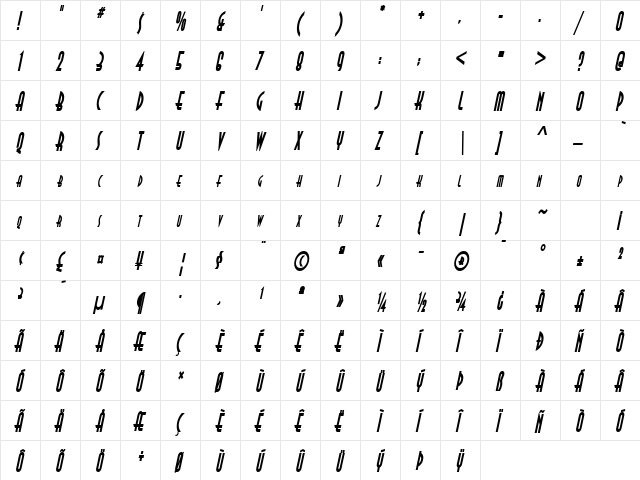
Asia Thin BoldItalic
Design Context for Asia Thin Typeface
Asia Thin is a composed and adaptable typeface that performs quietly and consistently across a wide range of design contexts. The slanted form adds forward momentum and visual energy. The heavy weight commands attention and anchors typographic hierarchies.
Pro Tip: Try Asia Thin for annotation and caption copy alongside an upright companion — the contrast in angle creates a dynamic but ordered typographic system.